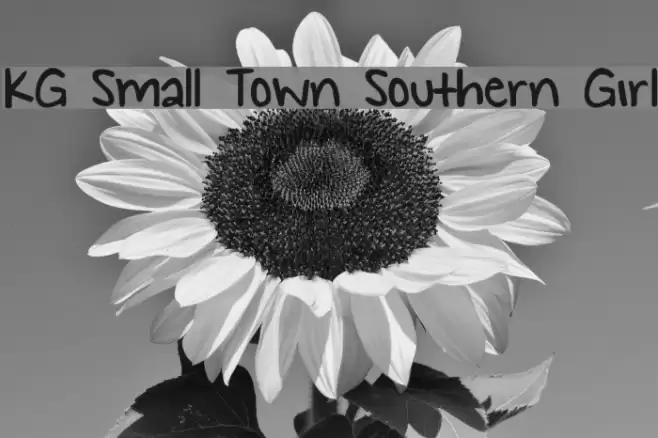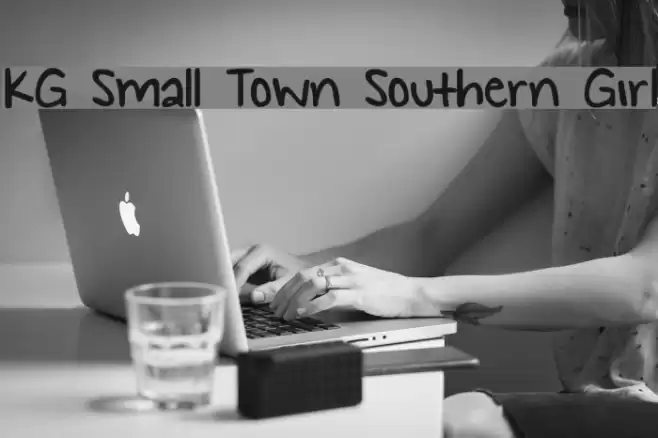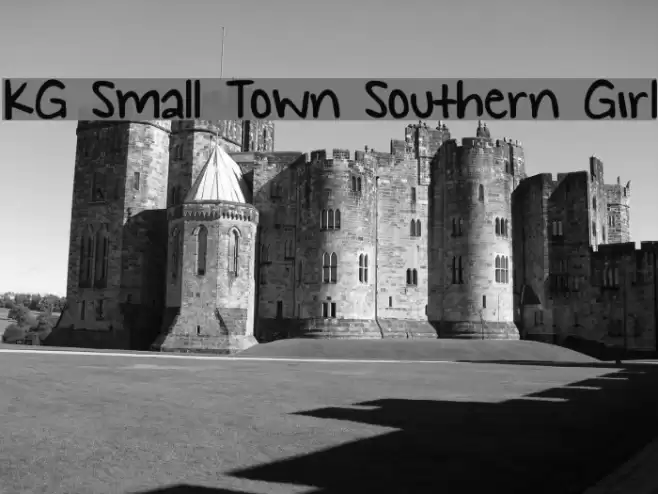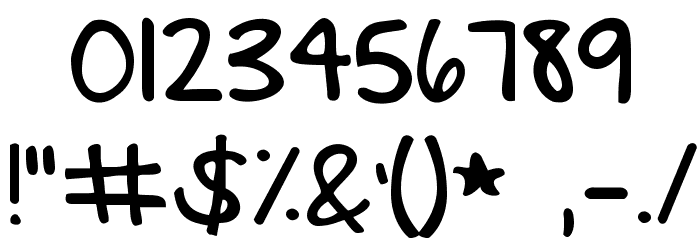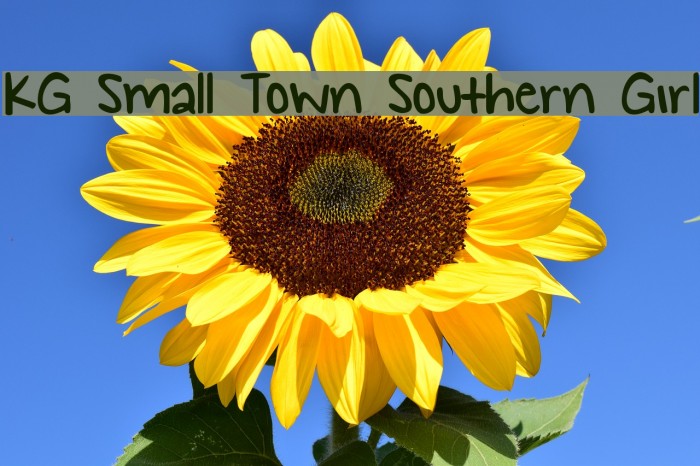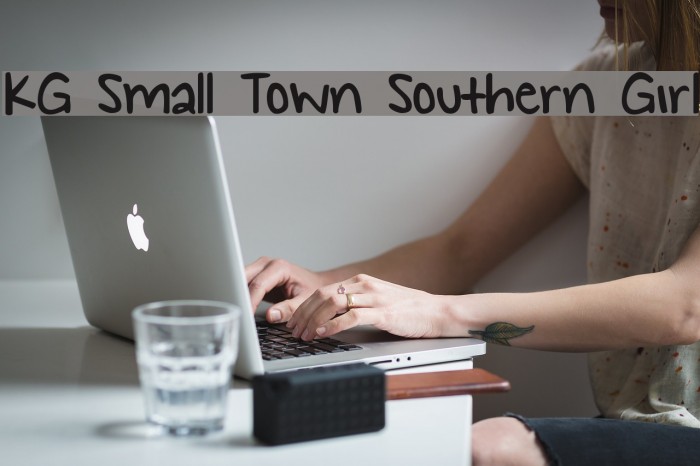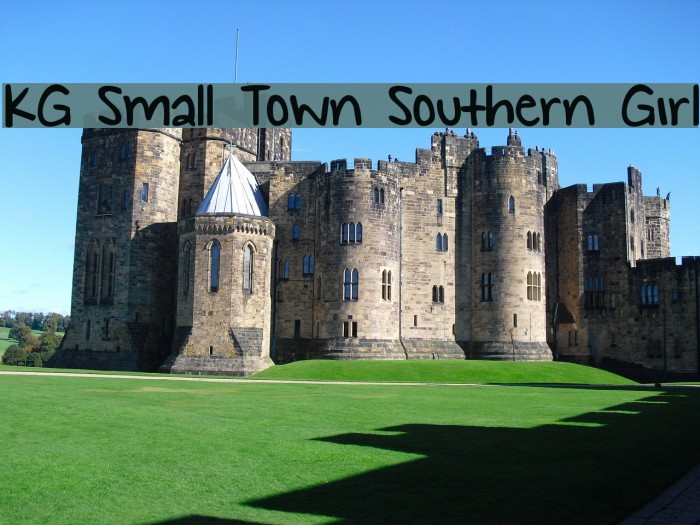
KG Small Town Southern Girl Font
KG Small Town Southern Girl Description
This font features a playful and casual handwritten style, characterized by its rounded and slightly irregular letterforms. The strokes are consistent in width, giving it a uniform appearance while maintaining a friendly and approachable vibe. The uppercase and lowercase letters are well-balanced, with a slight tilt that adds to its informal charm. The numerals and special characters are designed to match the overall style, ensuring coherence across all text elements. This font is perfect for projects that require a personal touch, such as invitations, greeting cards, and children's books.
A playful, casual handwritten font with rounded, consistent strokes from Uncategorized fonts.
- Proposed Projects: Ideal for invitations, greeting cards, children's books, and personal branding.
- Overall Style: Casual
- Use Case: Headlines, Logos, Informal text